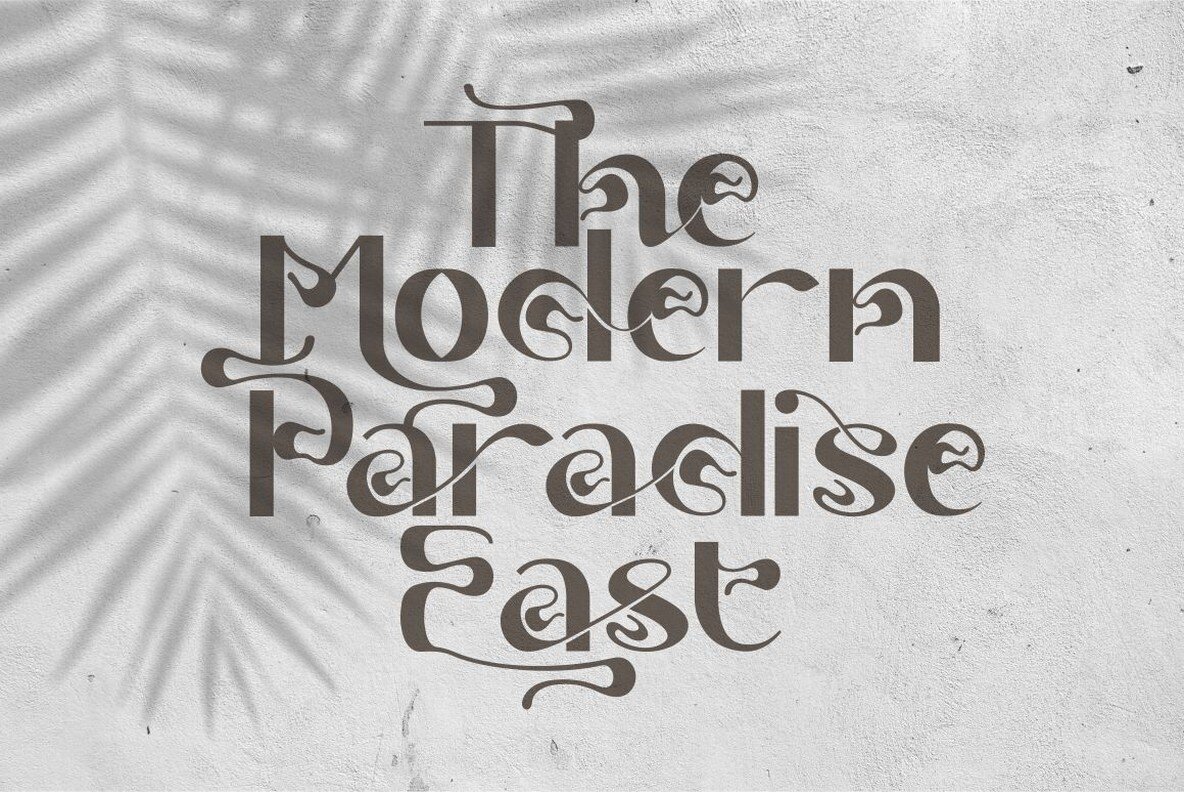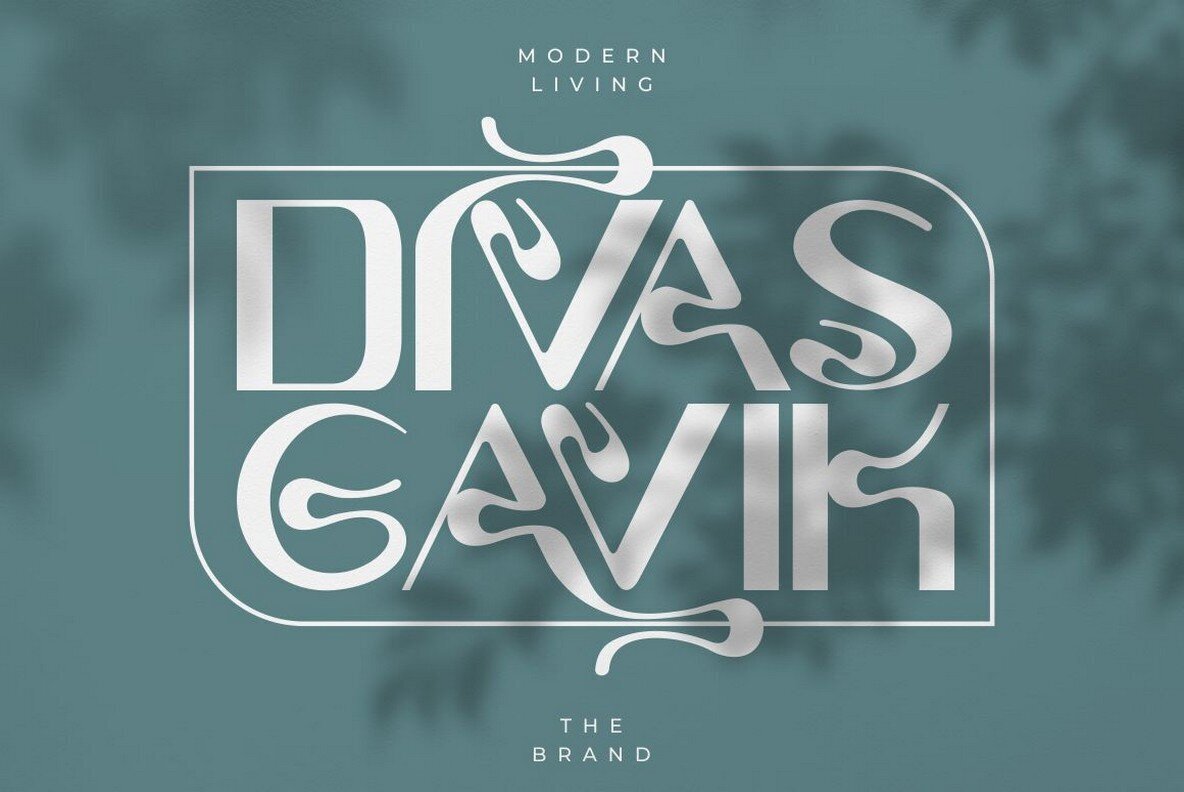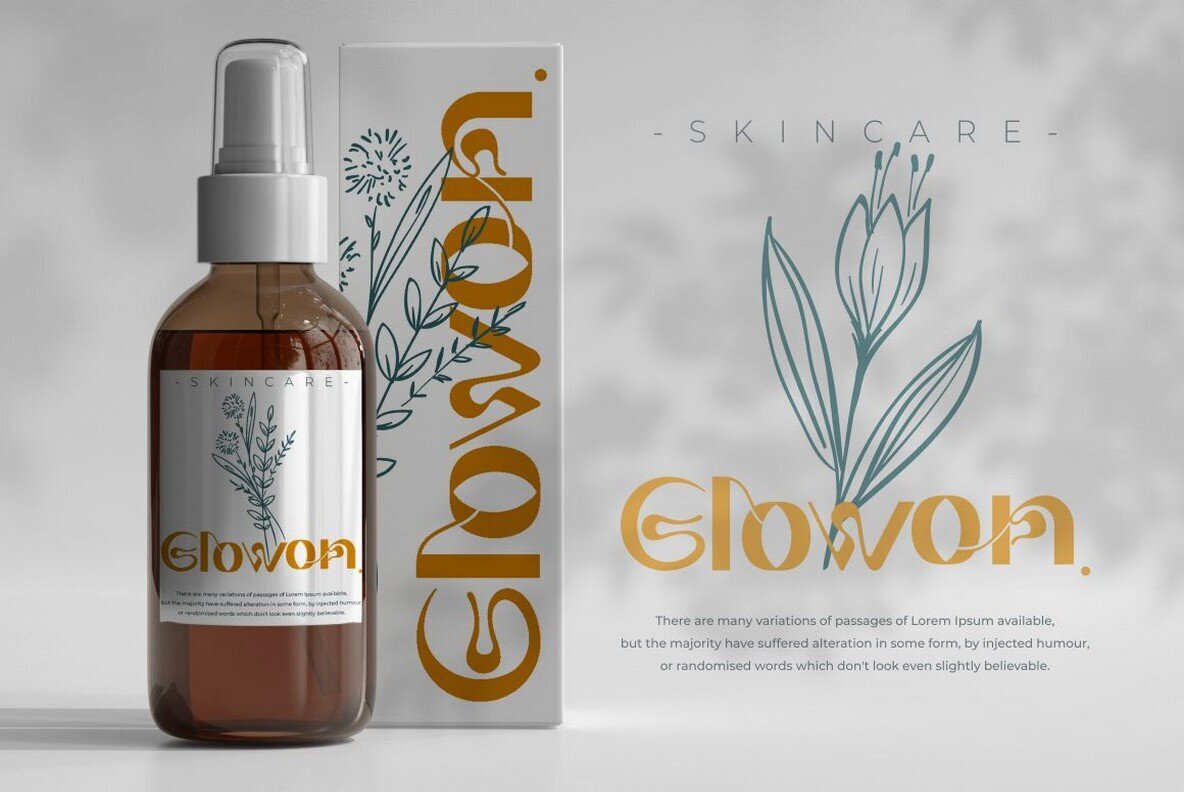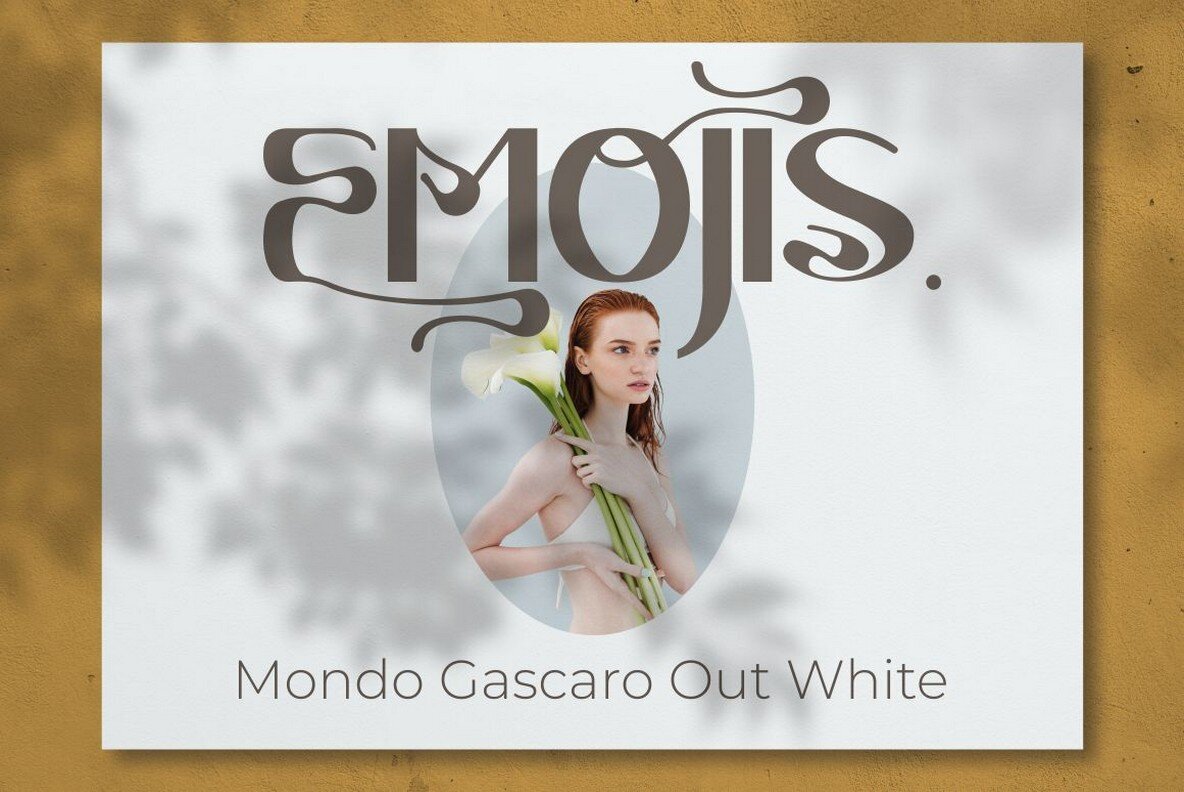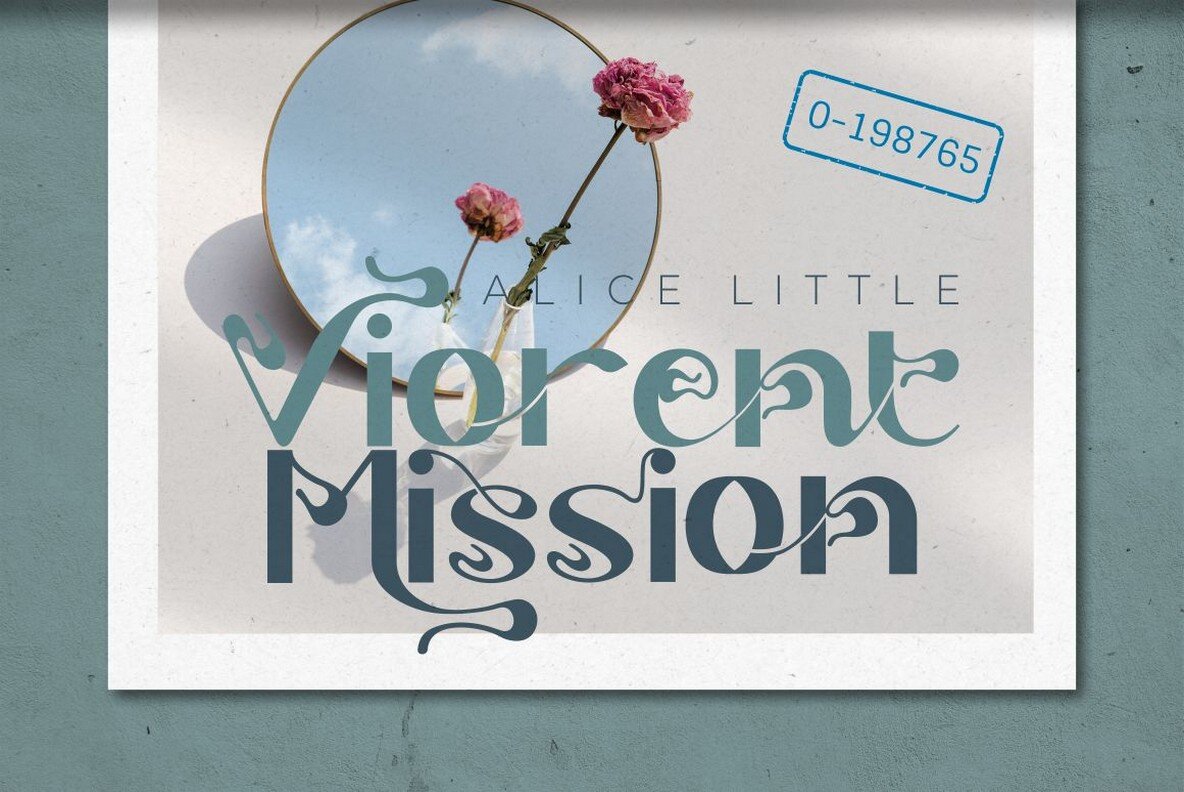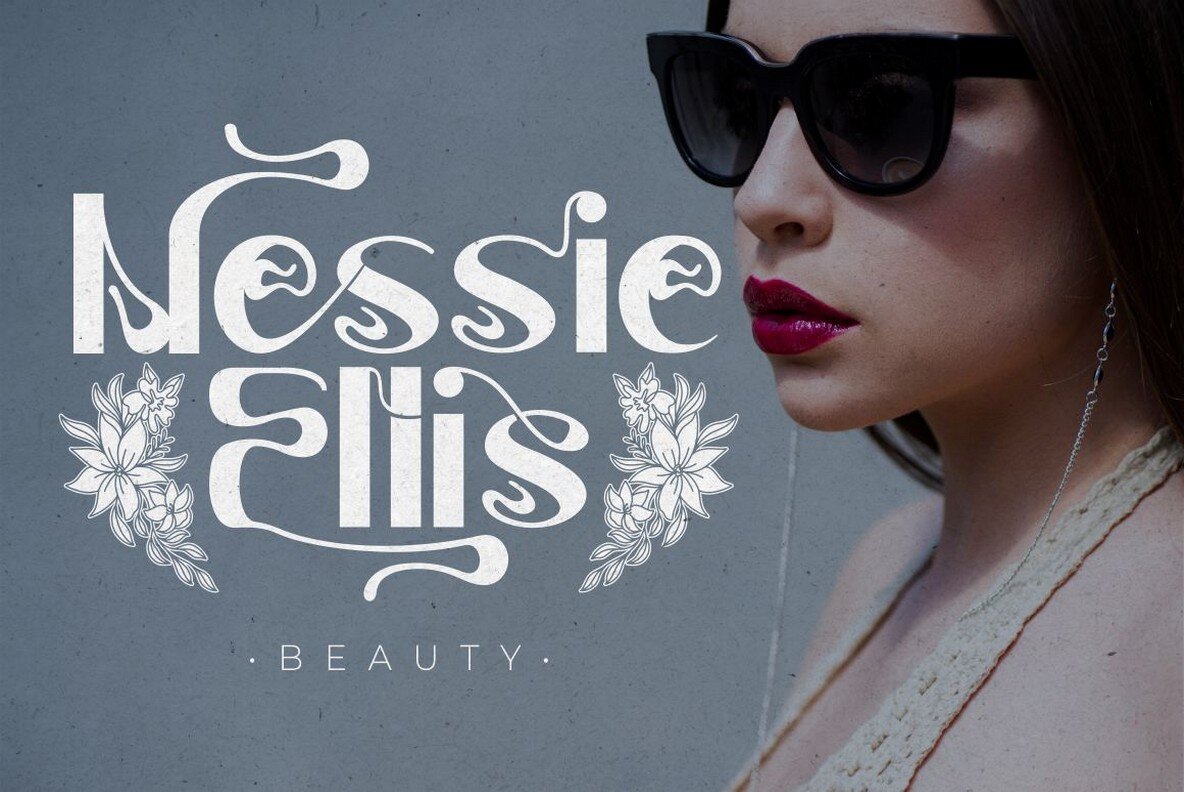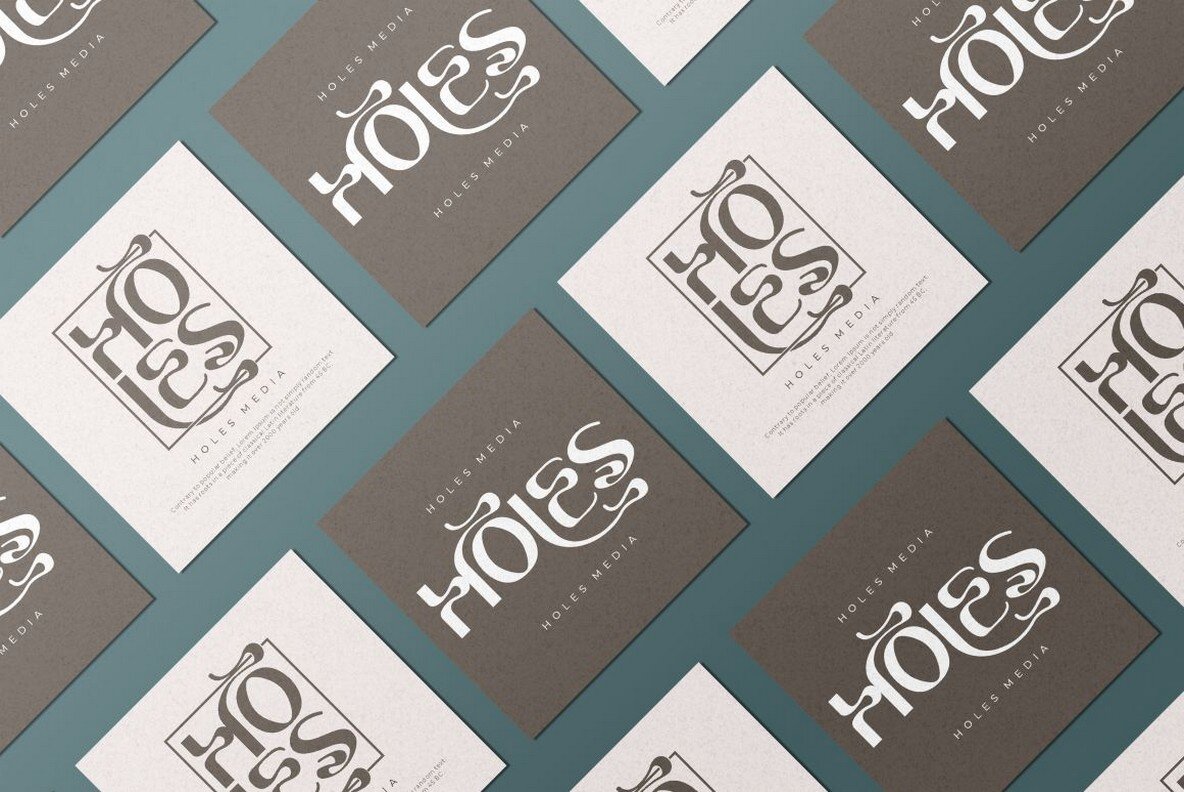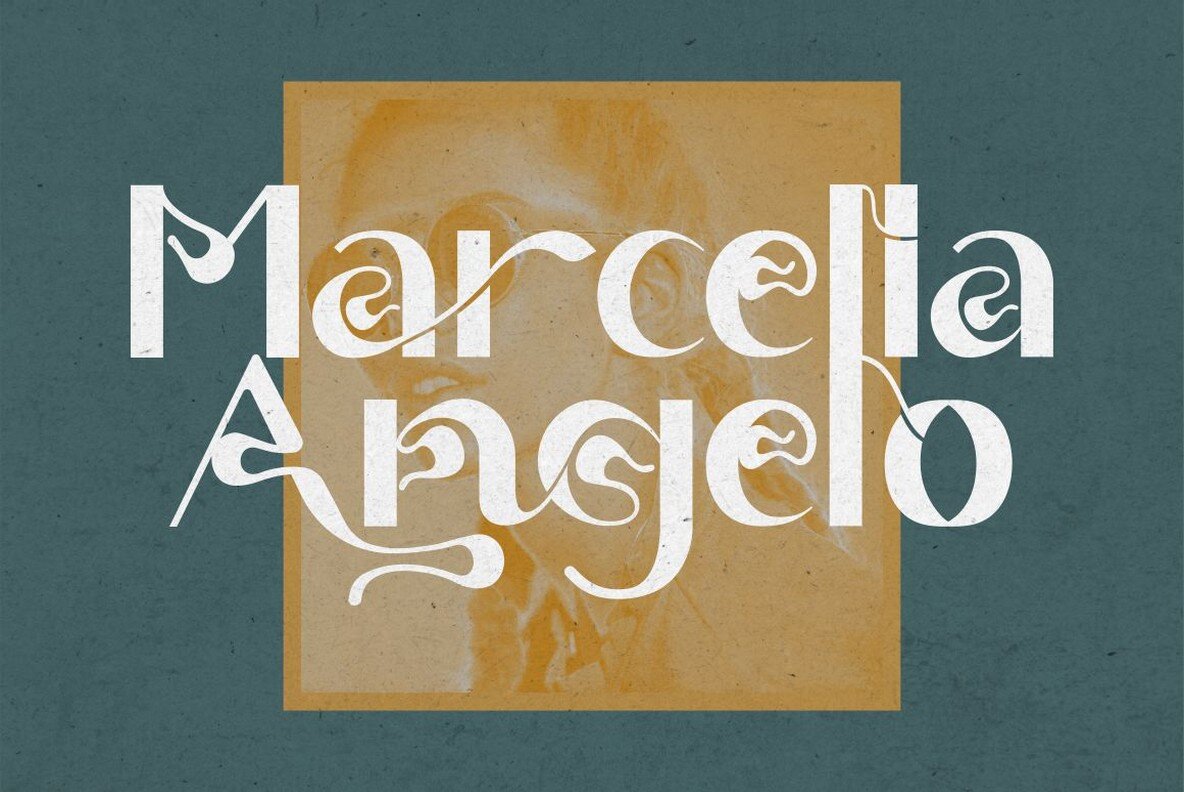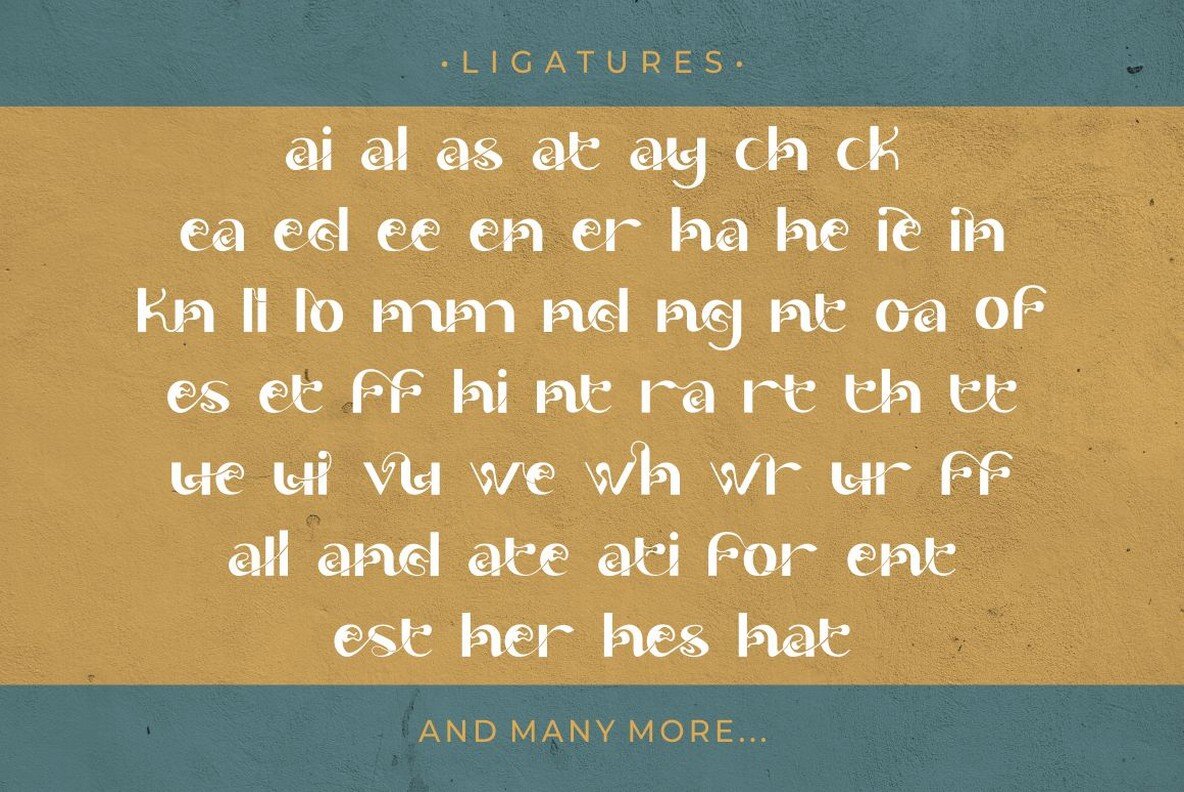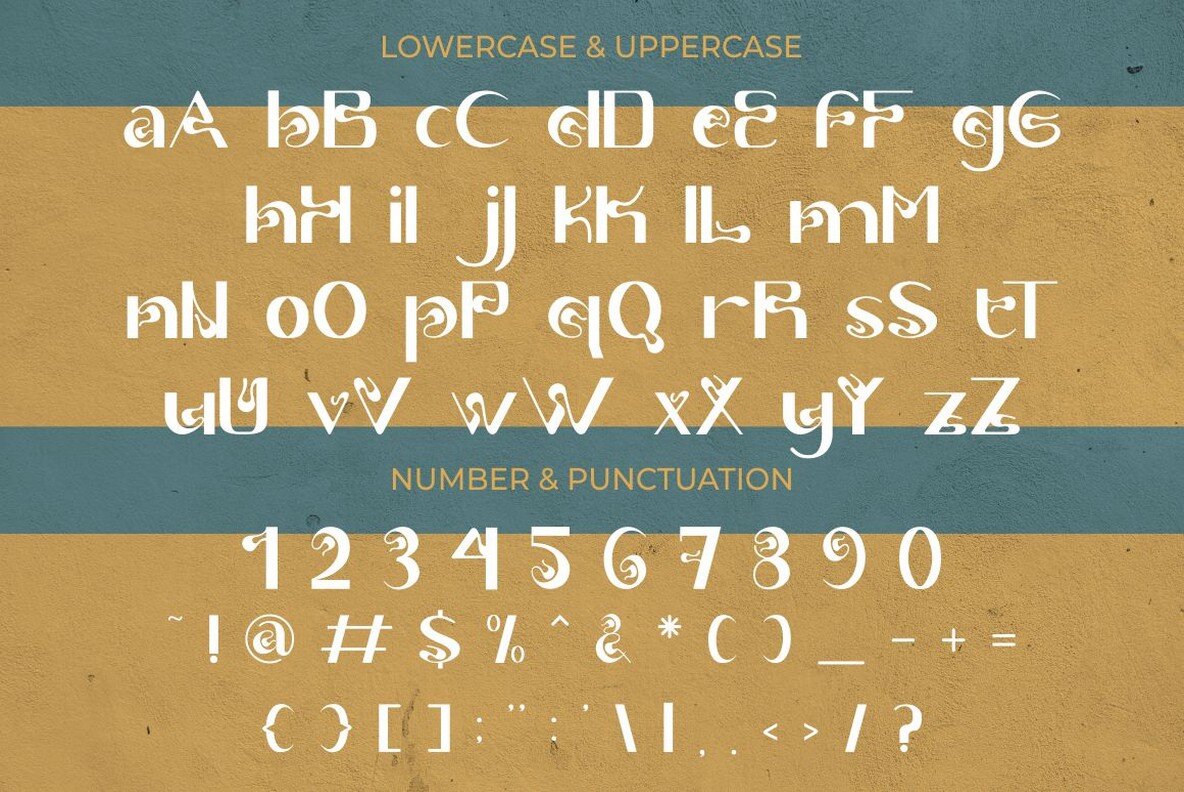
Midocean Font
Midocean
Midocean draws inspiration from the rich visual tradition of the Javanese alphabet, presenting a unique fusion with modern typography. This decorative sans font offers a vast range of creative possibilities with its impressive collection of 534 glyphs and 359 alternates, allowing designers to craft myriad letter combinations effortlessly. Designed with intuitive open-type features, including a variety of alternates and end swashes, Midocean supports dynamic visual expressions. Ideal for a broad array of applications such as logotypes, headings, posters, product packaging, and social media graphics, this font adds a distinctive flair. Best employed in creative projects, it also supports multiple languages, providing global versatility. To fully explore Midocean's range of alternate glyphs, use compatible software such as Adobe Illustrator, Adobe Photoshop, Adobe InDesign, or CorelDraw. This ensures that every design benefits from the font’s full artistic potential.Midocean: Intricate Decorative Sans Font